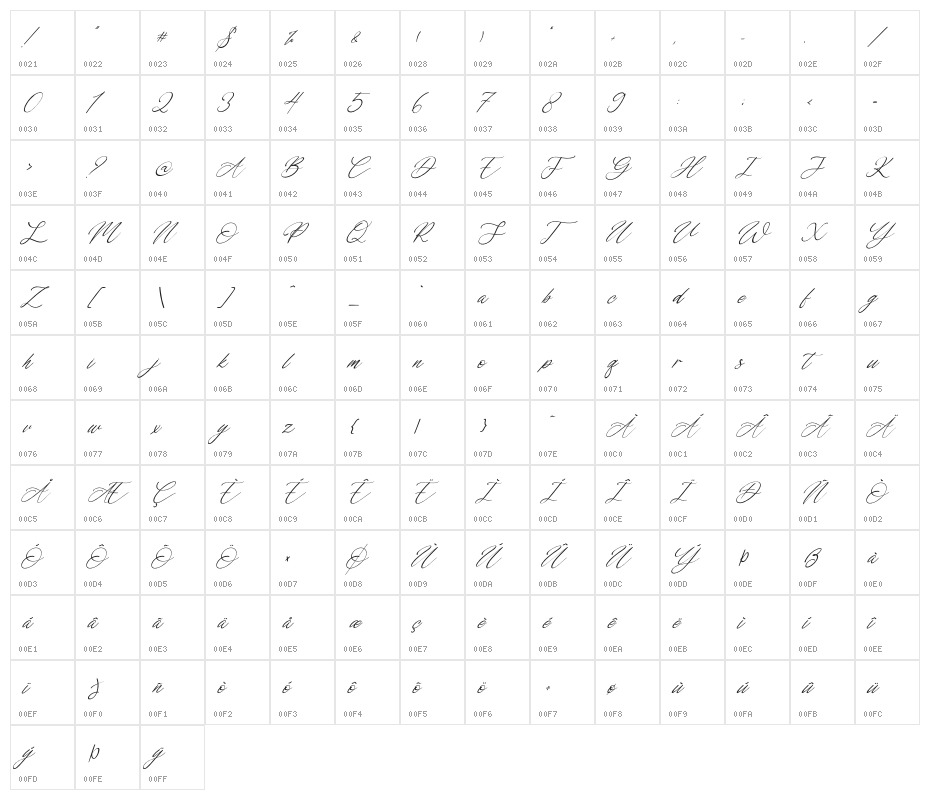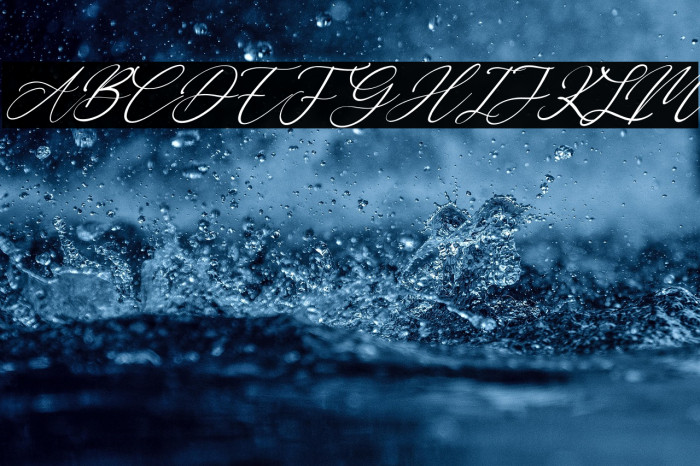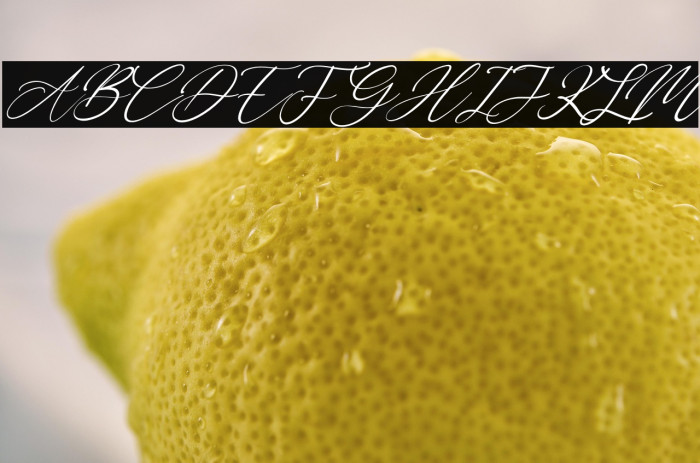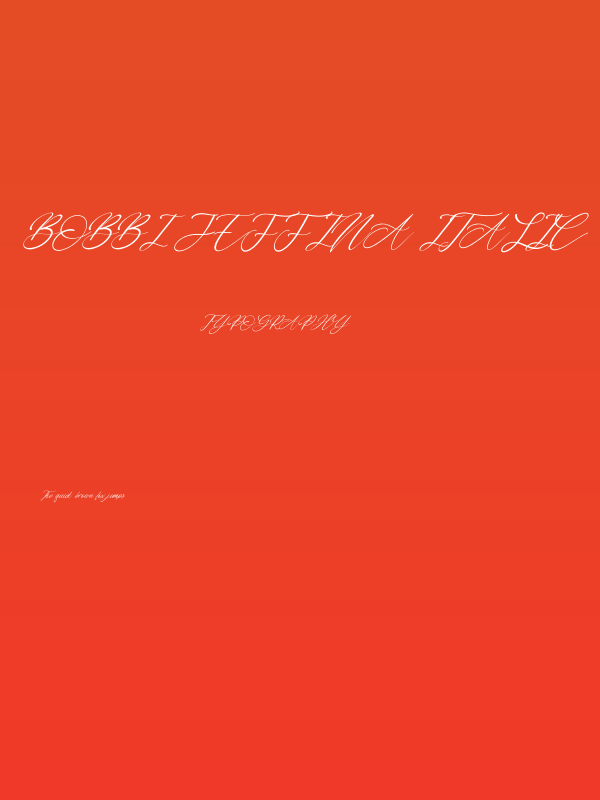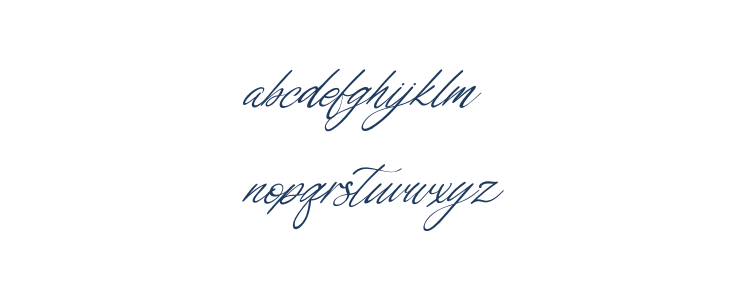
Bobbi Jeffina Italic Font
Bobbi Jeffina Italic Description
This elegant script font features a flowing, cursive style with a sophisticated flair. The letters are connected, creating a seamless and fluid appearance that mimics natural handwriting. The strokes are smooth and consistent, with a slight slant that adds to its graceful aesthetic. The uppercase letters are ornate and decorative, while the lowercase letters maintain a more understated elegance. Numbers and special characters are designed to complement the overall style, ensuring a cohesive look across all text. This font exudes a sense of refinement and is perfect for projects that require a touch of class and sophistication.
| Overall Style | Elegant, Sophisticated |
| Use Case | Invitations, Branding, Signatures |
| Proposed Projects | Ideal for wedding invitations, elegant branding, personal signatures, and high-end product packaging. |